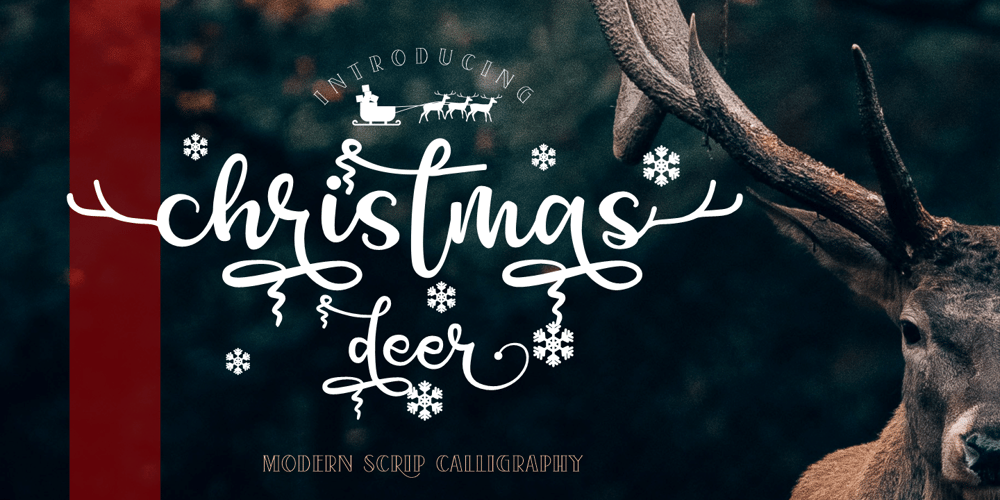
Christmas Deer
Christmas Deer font
Christmas Deer Font Family was designed by Joko Setiono and published by Arttype7. Christmas Deer contains 1 styles and family package options. We just launched a new product font.charming fonts with a pretty christmas look, named “cristmas deer font”.This font is inspired by deer antlers. has 3 beautiful swash variations. and also has more than 650 glyphs.This font also has a stylistic alternative for multilingual support.Perfect for logos, Christmas greeting cards, wedding invitations, web, t-shirts, souvenirs, quotes, graphic watermarks.thank youregards